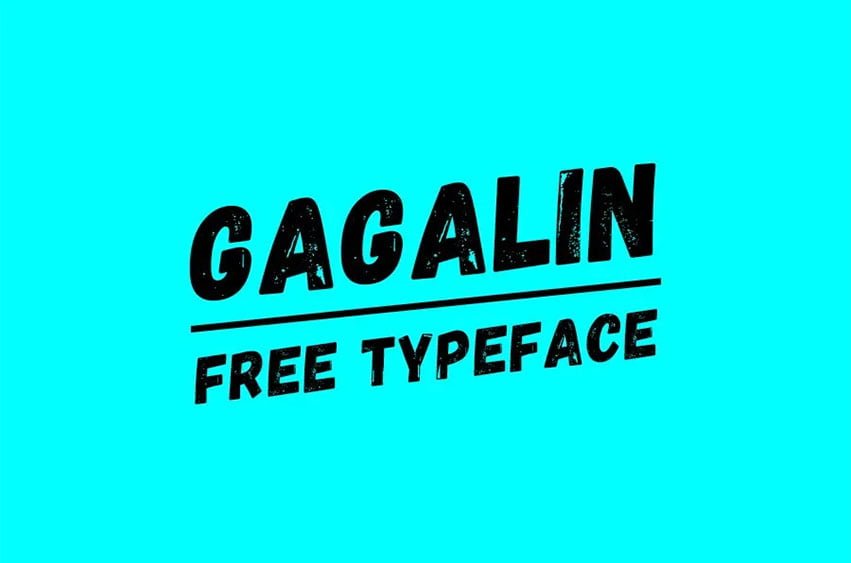
Gagalin Font is a retro comic font by Iordanis Passas (Athens, Greece). The type is made with a rough and scratch effect to it! This beautiful example of display fonts can add a lavish vintage touch to any design you do!
The Gagalin regular font works perfectly for poster design, t-shirts, apparel, hard surface, branding, flyers and more! The Gagalin font supports characters of the Russian alphabet.